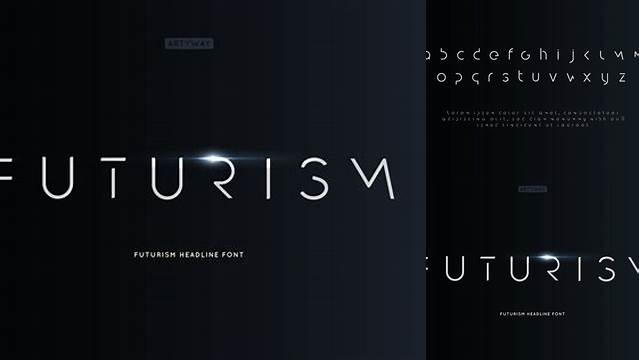
Futurism Headline Font: Free Downloads For Modern Designs
Are you looking to add a futuristic touch to your designs? Look no further! In this article, we'll dive into the world of futurism headline fonts, exploring what makes them unique, where you can find them for free, and how to use them effectively in your projects. Let's get started!
What is a Futurism Headline Font?
Futurism headline fonts are typefaces inspired by the futurist art movement of the early 20th century. This movement celebrated technology, speed, and the dynamism of modern life, and these fonts reflect those ideals through their bold, angular, and often unconventional designs. Think sharp edges, geometric shapes, and a sense of forward motion – that's the essence of a futurism headline font.
These fonts are not just about aesthetics; they're about making a statement. They evoke a sense of innovation, progress, and the cutting edge. When you use a futurism headline font, you're not just choosing a typeface; you're choosing to communicate a message of modernity and sophistication. They are often used in projects related to technology, science, gaming, and any field that wants to project a forward-thinking image.
Futurism as a design movement rejected traditional typography, favoring experimentation and a break from the past. Therefore, these fonts often feature unconventional letterforms, unusual proportions, and a general disregard for traditional typographic rules. This rebellious spirit is part of what makes them so appealing, especially for projects that aim to stand out and challenge the status quo.
When selecting a futurism headline font, consider the overall tone and message of your design. Some fonts are more aggressive and assertive, while others are more subtle and refined. Choose a font that aligns with the specific mood you're trying to create. Also, think about readability – while these fonts are designed to be eye-catching, they should still be legible, especially in headline sizes. Nobody wants a headline that looks cool but is impossible to read! So, balance the aesthetic appeal with practical usability.
Where to Find Free Futurism Headline Fonts
- Creative Market Free Goods: Creative Market offers a selection of free goods every week, including fonts. Keep an eye on their freebies section, as you might just find the perfect futurism headline font for your next project. Their fonts are top quality and are free for a limited time, so make sure you do not miss out!
How to Use Futurism Headline Fonts Effectively
Okay, so you've found the perfect futurism headline font. Now what? Here are some tips to help you use it effectively and create stunning designs:
- Pairing is Key: Futurism headline fonts are often quite bold and attention-grabbing, so it's essential to pair them with a more neutral and readable body font. A clean sans-serif or a classic serif typeface can work well, providing a balance to the overall design. Think of it as creating a visual harmony – the headline grabs attention, while the body text provides clarity and readability.
- Consider the Context: Think about the context in which your font will be used. Is it for a website, a poster, a logo, or something else? The context will influence how you use the font. For example, a font that looks great on a large poster might not be as effective on a small mobile screen. Always consider the size, resolution, and viewing distance when choosing and using a font.
- Use Sparingly: Because futurism headline fonts are so distinctive, it's best to use them sparingly. Overusing them can make your design feel cluttered and overwhelming. Stick to using them for headlines, titles, and other key elements that you want to stand out. Less is often more when it comes to these bold fonts.
- Experiment with Color and Effects: Don't be afraid to experiment with color and effects to enhance the look of your futurism headline font. Gradients, shadows, and other effects can add depth and dimension to your typography, making it even more visually appealing. Just be careful not to overdo it – the goal is to enhance the font, not to obscure it.
- Pay Attention to Kerning and Leading: Kerning (the space between individual letters) and leading (the space between lines of text) can have a big impact on the readability and overall appearance of your typography. Take the time to adjust these settings to ensure that your text looks balanced and harmonious. Good kerning and leading can elevate your design from amateur to professional.
- Create a Visual Hierarchy: A well-designed layout should have a clear visual hierarchy, guiding the viewer's eye through the content in a logical order. Use your futurism headline font to create a strong focal point, drawing attention to the most important information first. Then, use other typographic elements to create a hierarchy of information, making it easy for viewers to understand and engage with your design.
Examples of Great Futurism Headline Fonts
To give you some inspiration, here are a few examples of futurism headline fonts that you can download and use in your projects:
- Metropolis: A geometric sans-serif font with a modern and minimalist feel.
- Exo: A futuristic sans-serif font with a dynamic and energetic vibe.
- Nexa Rust: A textured font family with a vintage and industrial aesthetic.
- Prime: A bold and angular font with a strong and assertive presence.
- Rajdhani: A versatile sans-serif font with a clean and contemporary look.
These are just a few examples, of course, and there are many other great futurism headline fonts out there to discover. The key is to experiment and find the fonts that best suit your individual style and design needs.
Futurism headline fonts are a powerful tool for creating designs that are bold, modern, and visually striking. By understanding what makes these fonts unique, knowing where to find them for free, and following these tips for using them effectively, you can create designs that truly stand out from the crowd. So go ahead, download some futurism headline fonts and start experimenting today! Your designs will thank you for it.